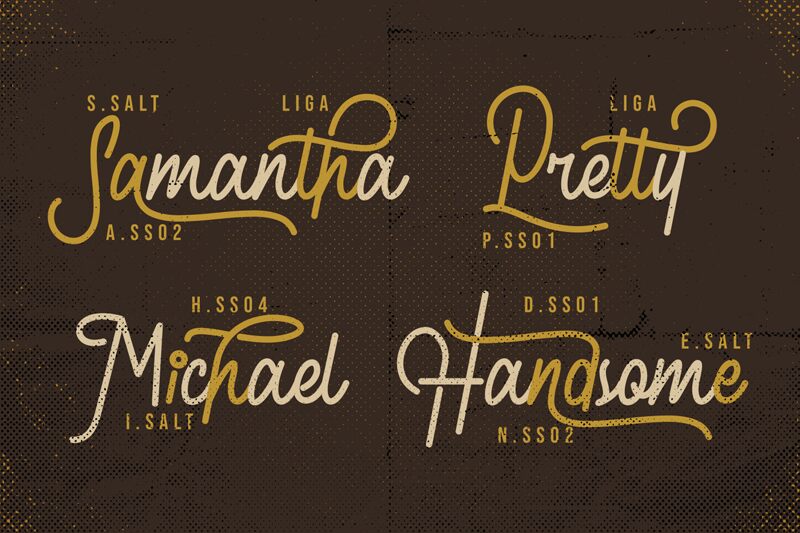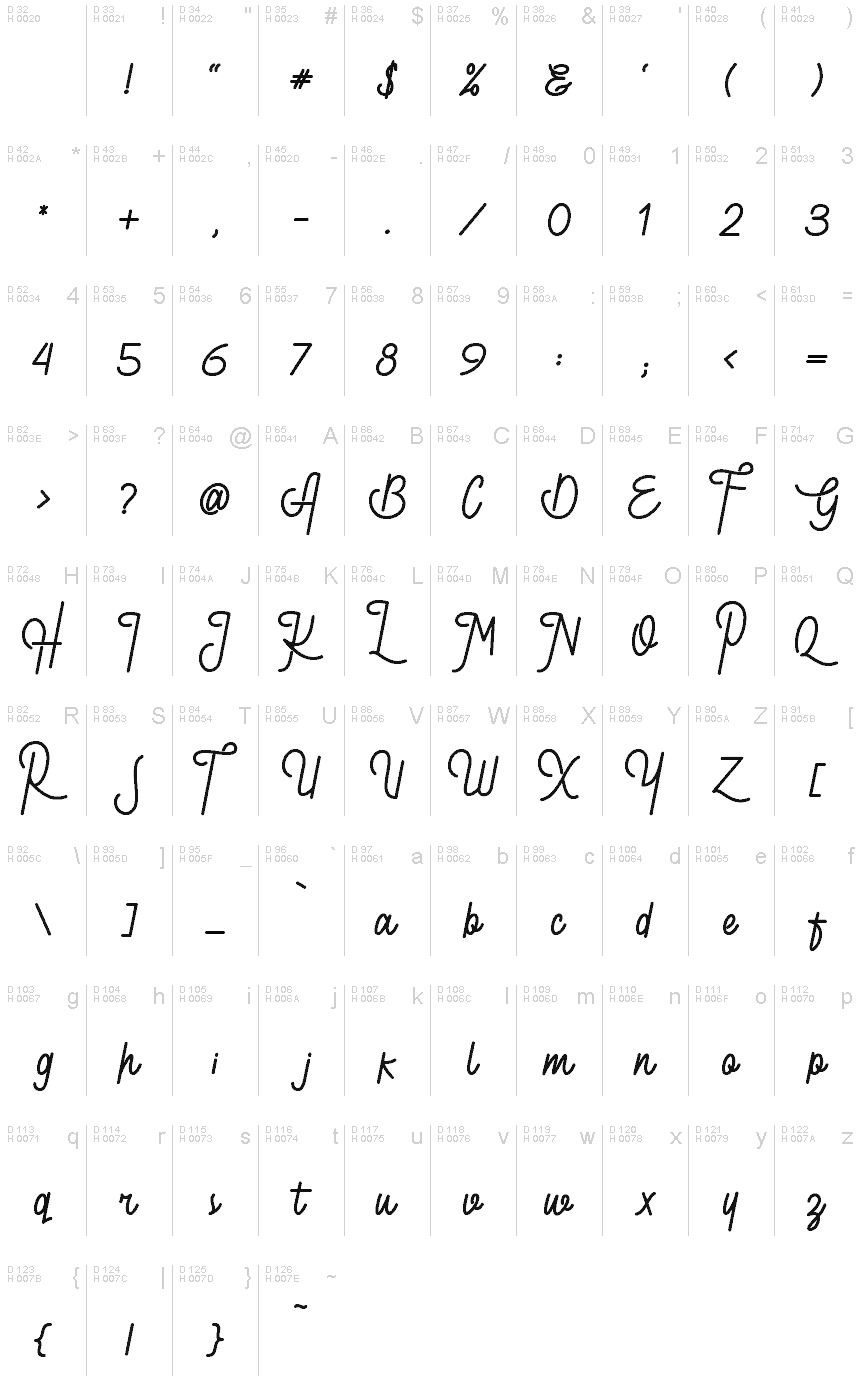
Introducing, Retroville, monoline typeface with semi signature style.
This monoline typeface will bring you to the new experience in typing. Perfect for logotype, headline, apparel, quotes, poster with vintage and exclusive feels.
1. Uppercase and lowercase characters
2. Supports international languages
3. Features: Uppercase, Lowercase, numeral & punctuation, multilanguage, stylistic alternates, and ligatures